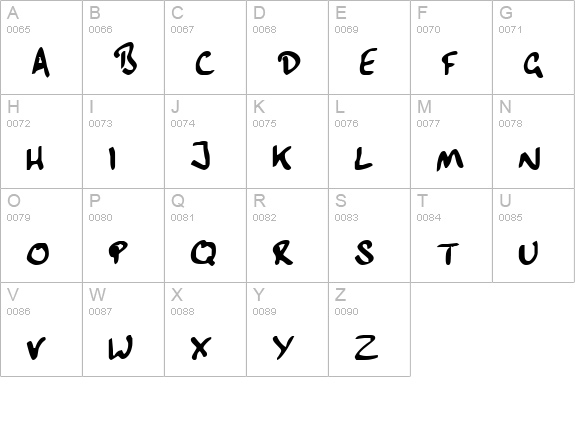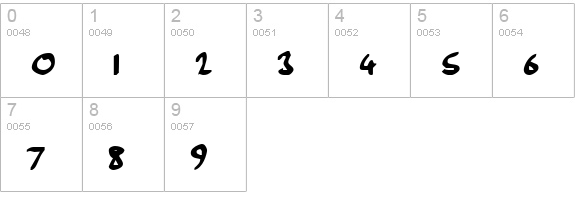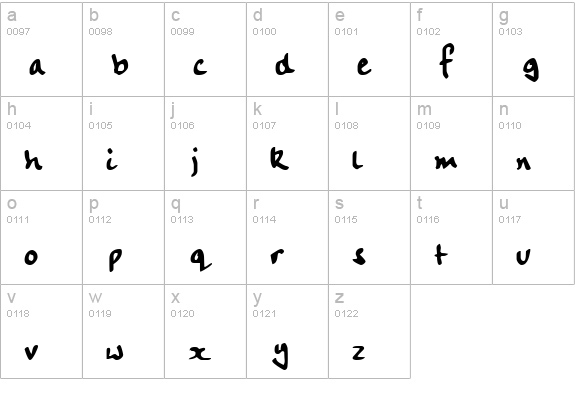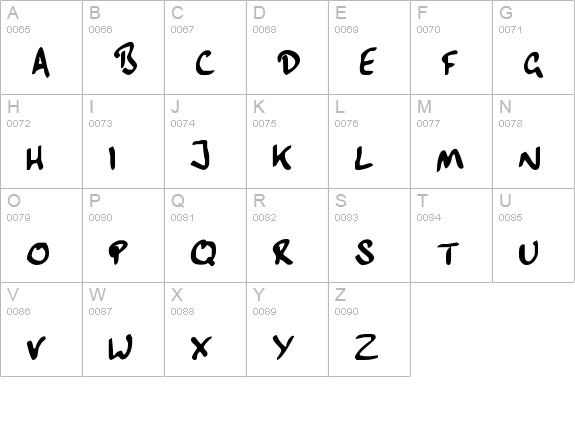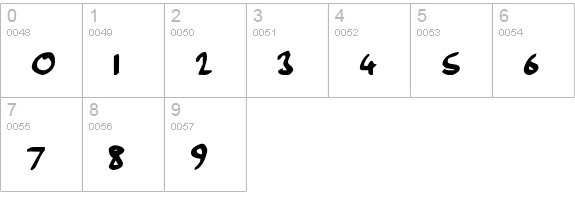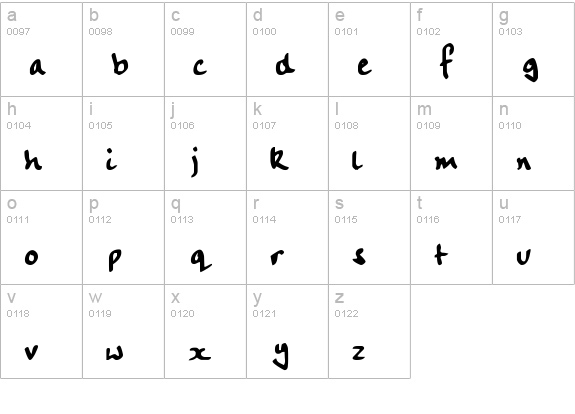
HandwritingPlain Font Details
HandwritingPlain is a charming and versatile font that beautifully captures the essence of handwritten text. With its smooth and flowing strokes, this font adds a personal touch to any design project. Whether you're creating invitations, greeting cards, or a unique logo, HandwritingPlain will infuse your work with a sense of warmth and authenticity. What makes HandwritingPlain even more appealing is that it is freely available to download at FontsMarket.com. That's right, you can enhance your designs without spending a dime. This generous offer allows you to explore the endless possibilities of HandwritingPlain without any limitations. With HandwritingPlain, you have the freedom to express your creativity in a way that is unique and truly your own. Its clean and legible characters make it suitable for a wide range of applications, from digital designs to print materials. Whether you're a professional designer or a hobbyist, HandwritingPlain is the perfect choice for adding a personal touch to your projects. So why wait? Download HandwritingPlain today from FontsMarket.com and start elevating your designs with this elegant and free font. Embrace the beauty of handwritten text and let your creativity shine through with HandwritingPlain.